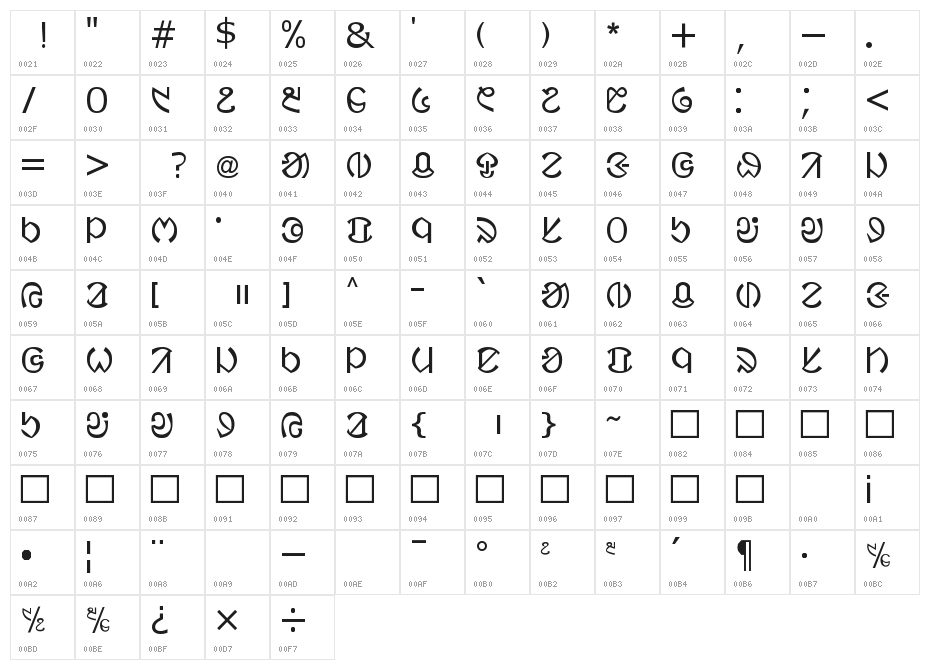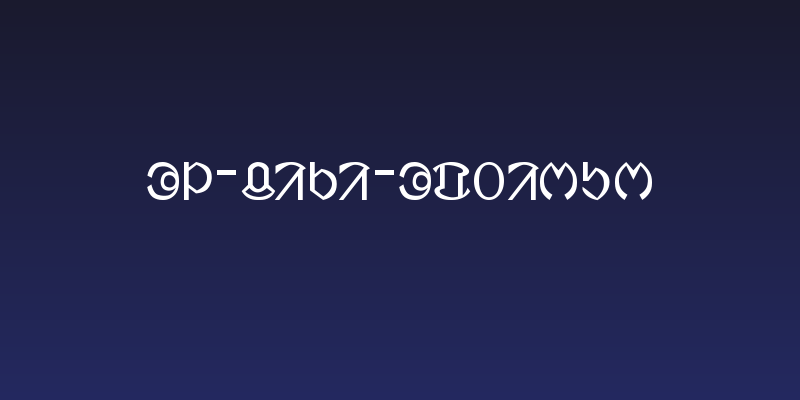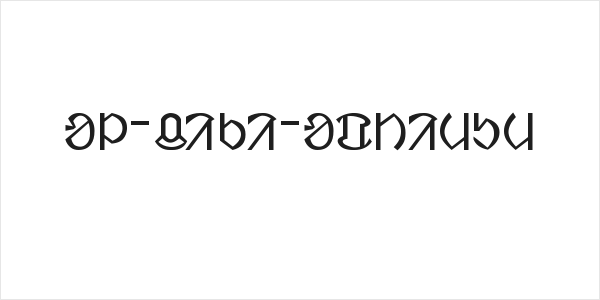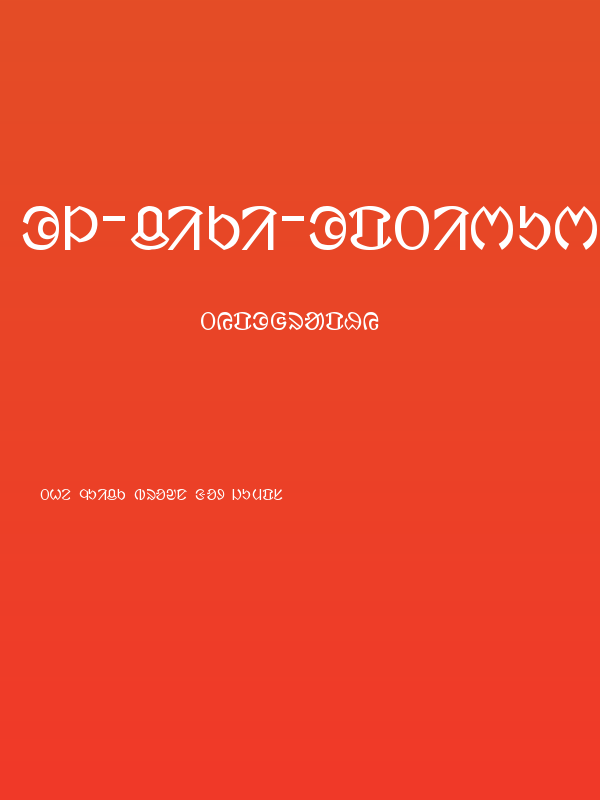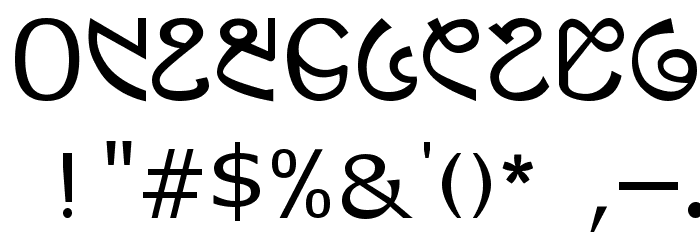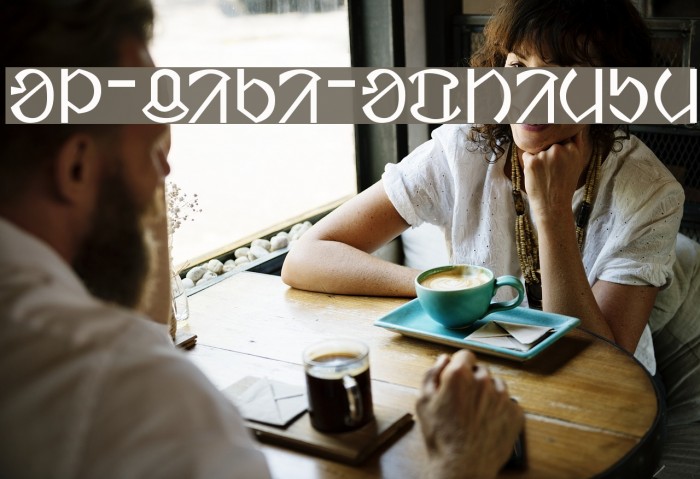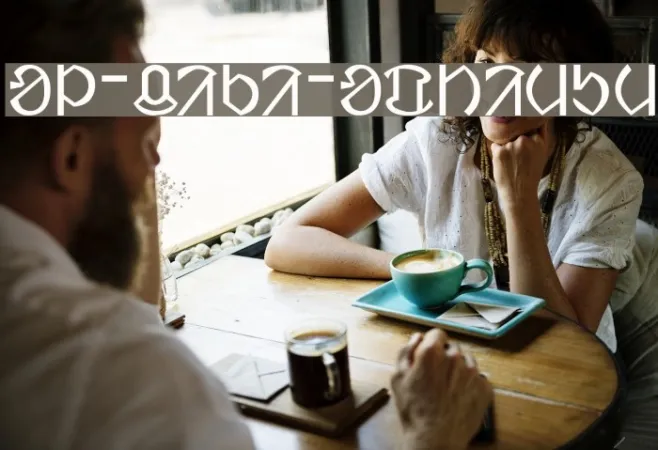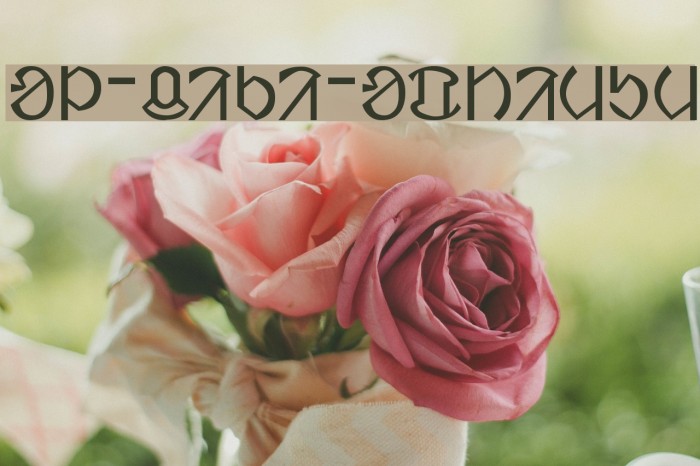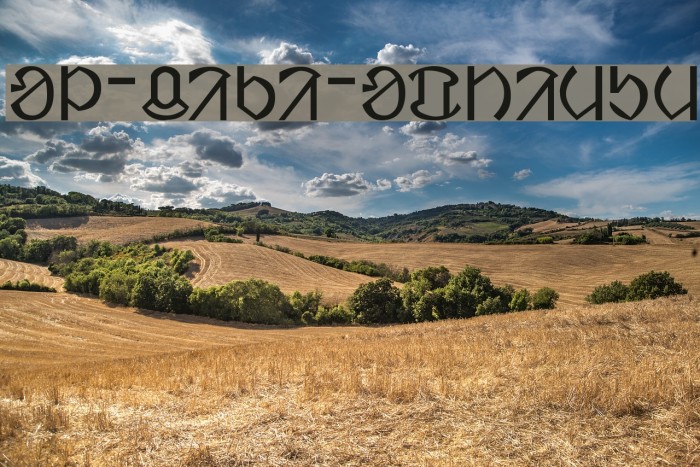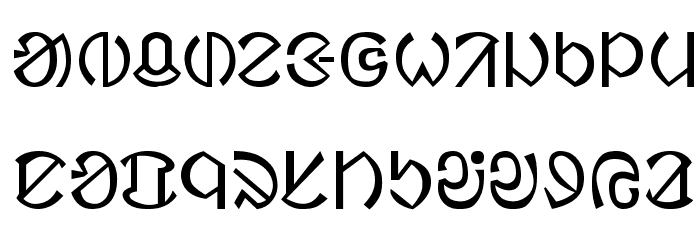
ol_ciki_optimum Font
ol_ciki_optimum Description
This font features a highly decorative and abstract style, characterized by its unique and intricate design elements. The letters are composed of bold, sweeping curves and sharp angles, creating a sense of movement and dynamism. Each character is distinct, with a playful yet sophisticated appearance that captures attention. The font's design is reminiscent of ancient scripts or symbolic languages, offering a mysterious and artistic flair. Its bold strokes and high contrast make it stand out, while the overall aesthetic is both modern and timeless, suitable for creative and unconventional projects.
| Overall Style | Modern, Decorative |
| Use Case | Logos, Posters, Artistic projects |
| Proposed Projects | Ideal for artistic projects, branding, logos, posters, and any design requiring a unique and eye-catching typeface. |